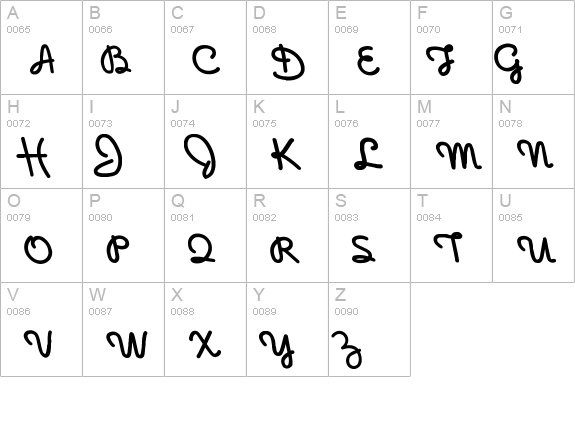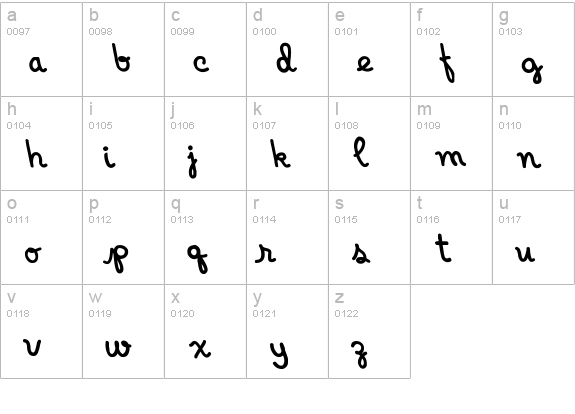
Holiday-India Font Details
Holiday-India font is a vibrant and festive typeface inspired by the rich cultural heritage of India. This unique font features intricate designs and bold, eye-catching characters that evoke the spirit of celebration and joy. Perfect for creating stunning designs for holiday-themed projects, party invitations, and more, Holiday-India font is sure to make your creations stand out. The best part? Holiday-India font is freely available to download at FontsMarket.com. So you can easily add this beautiful font to your collection without any cost. Don't miss out on the opportunity to enhance your designs with the charm and elegance of Holiday-India font. Download it today and start creating captivating visuals that capture the essence of India's vibrant holidays and celebrations.